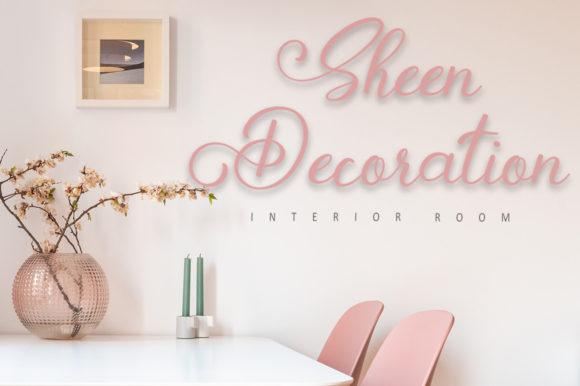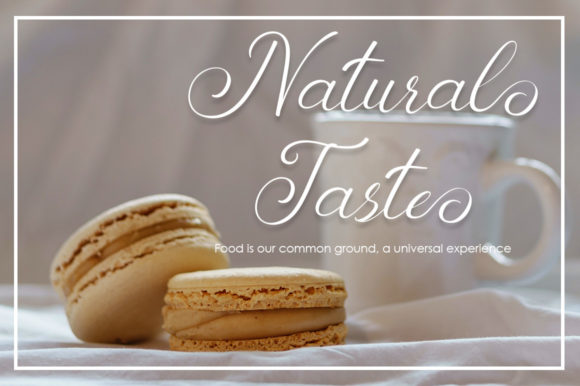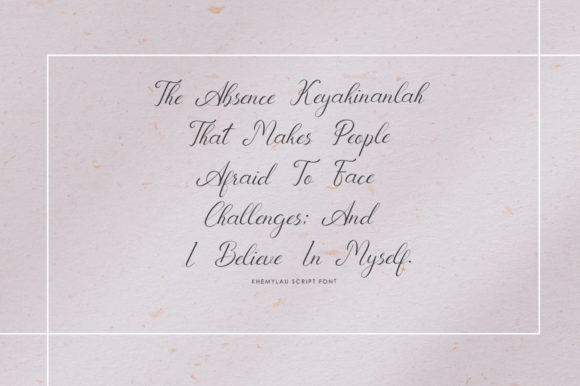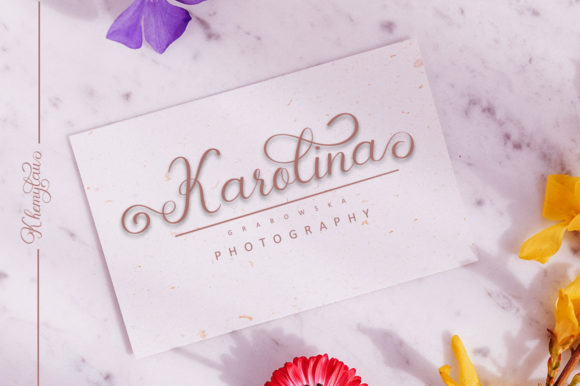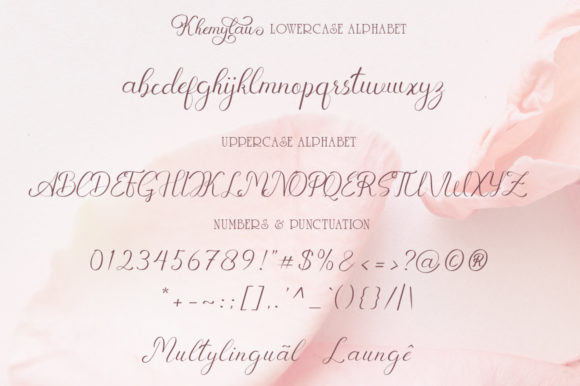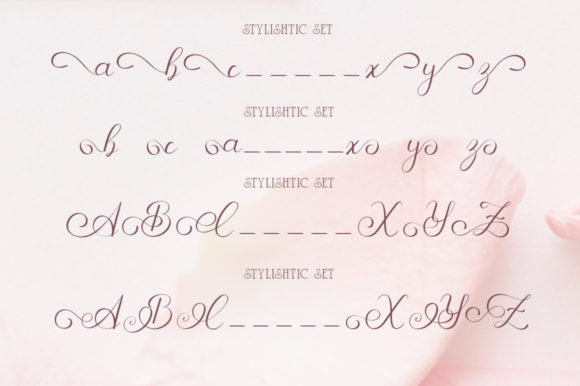
Introduction to Khemylau Font Font
Fonts play a crucial role in design, and the Khemylau Font font is a typeface that brings both character and versatility to any project. Whether you’re working on a branding project, a website, or a print design, the Khemylau Font font offers a unique style that can elevate your work.
Khemylau is a well balanced and delicate script font.
This versatile script font has a wide spectrum of applications ranging from greeting cards to headlines and is guaranteed to add a romantic feel to your next project This font is PUA encoded which means you can access all of the beautiful glyphs and swashes with ease.
Key Features of Khemylau Font Font
Why Choose Khemylau Font Font?
The Khemylau Font font is more than just a typeface – it’s a design tool that helps you communicate your message with style and clarity. Its unique character set and versatile design make it suitable for a wide range of applications, from elegant invitations to bold headlines.
With its carefully crafted letterforms and balanced proportions, the Khemylau Font font ensures readability and visual appeal across all mediums.
What makes Khemylau Font font special?
The Khemylau Font font stands out with its unique design, exceptional readability, and versatility across various design applications.